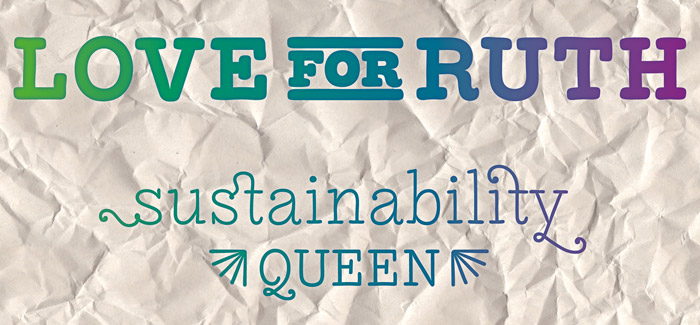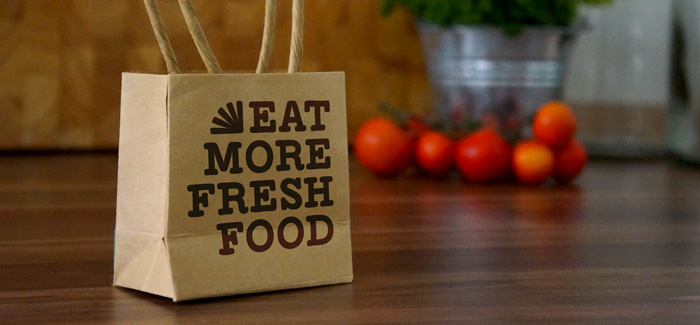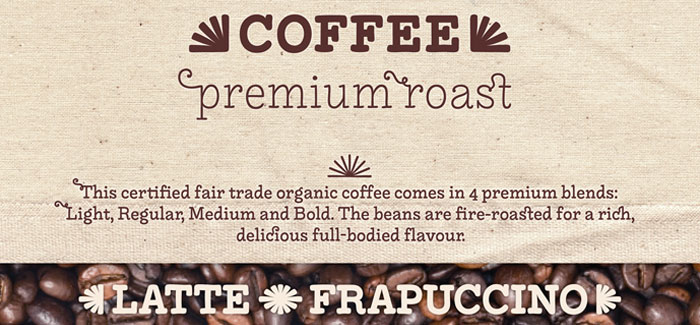
LiebeRuth font
LiebeRuth font is your 100% hand-made organic type. She absolutely loves to be typeset in large and small sizes, because Legibility is her middle name. (Yes, we know it’s not a typical girl’s name.) She is friendly and polite, but she also has a few quirks. Her friends are impressed with how natural she manages to look every day.
Her four weights ensure that Ruth has the right boldness for any context: birthday invitation, personal correspondence, photo album, or billboard ad.
During the creation of this font, her designer ate plenty of healthy, organic foods. We think this is the reason why Ruth looks so fresh and lively. And of course LiebeRuth font has been designed with lots of Liebe (which is German for “love”—and she speaks many other languages, too).
One more thing Ruth is marvelous at: showing off her curly-swirly swashed alternative letterforms that can be activated via OpenType. (Please make sure your software supports OpenType if you wish to use the advanced features.) Each style contains more than 560 gluten-free glyphs—now that is great value!